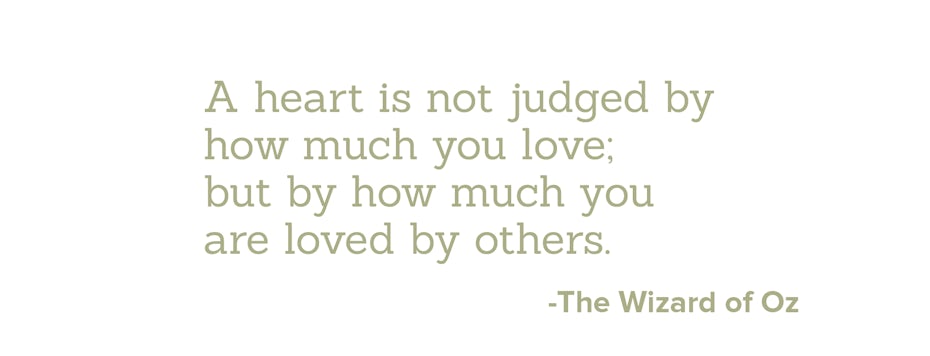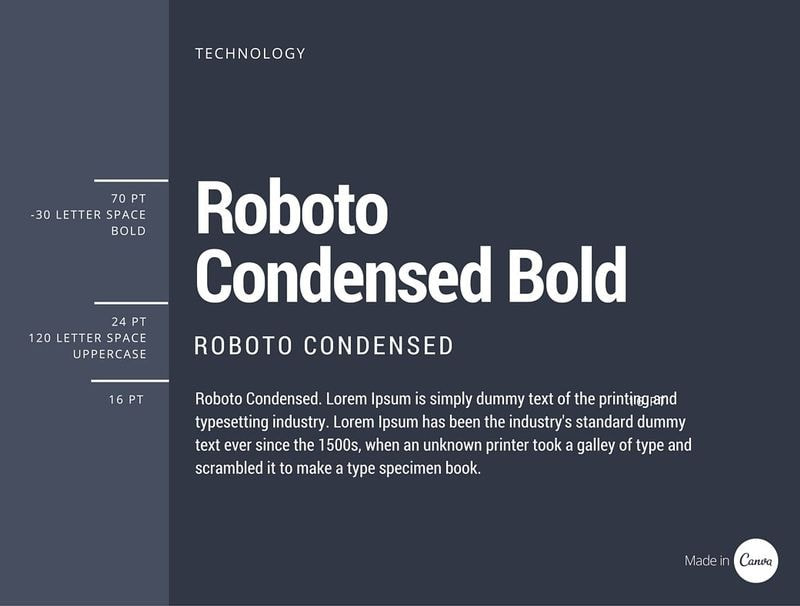
Fonts SVG PNG EPS DXF JPG AI Vector Qoutes File Sans Serif Font Combinations Potoshop. Google fonts now supports variable fonts. If you opt for different weights and sizes, you will be able to establish a friendly hierarchy between the two neutral families. Bodoni 175 merriweather minion pro montserrat museo museo sans rounded museo slab nimbus sans old standard open sans oswald oxygen petrona playfair display proxima nova pt serif quicksand. It uses the fonts available through the canva design tool. I will show you 10 beautiful font pairs which you can. Some great google font combinations for you to include in your next project. A breif explination of typography (serif vs sans) and some google font choices. Script typefaces are those in which many characters have strokes that join them to other letters similar to cursive handwriting. Sans serif typefaces are those that do not contain serifs at the end of strokes. It is clear, crisp and traditional. In this video, i will show you free font combinations of serif and sans serif fonts from google fonts. Canva's font combinations lets you select your first choice and makes suggestions on what its partner should be. Montserrat, a vintage font reminiscent of urban typography of the first half of the 1900s, is here used in combination with the sans serif font lato. See more ideas about font combos, font combinations, sans serif. In this case, a second sans serif font, lato, was used for smaller text for its readability and rounder, friendlier appearance to counterbalance oswald.
The Ultimate Guide To Font Pairing Learn. Sans serif typefaces are those that do not contain serifs at the end of strokes. See more ideas about font combos, font combinations, sans serif. In this video, i will show you free font combinations of serif and sans serif fonts from google fonts. Bodoni 175 merriweather minion pro montserrat museo museo sans rounded museo slab nimbus sans old standard open sans oswald oxygen petrona playfair display proxima nova pt serif quicksand. It uses the fonts available through the canva design tool. Canva's font combinations lets you select your first choice and makes suggestions on what its partner should be. Montserrat, a vintage font reminiscent of urban typography of the first half of the 1900s, is here used in combination with the sans serif font lato. Some great google font combinations for you to include in your next project. In this case, a second sans serif font, lato, was used for smaller text for its readability and rounder, friendlier appearance to counterbalance oswald. Google fonts now supports variable fonts. If you opt for different weights and sizes, you will be able to establish a friendly hierarchy between the two neutral families. I will show you 10 beautiful font pairs which you can. Script typefaces are those in which many characters have strokes that join them to other letters similar to cursive handwriting. It is clear, crisp and traditional. A breif explination of typography (serif vs sans) and some google font choices.
In this case, a second sans serif font, lato, was used for smaller text for its readability and rounder, friendlier appearance to counterbalance oswald. Script typefaces are those in which many characters have strokes that join them to other letters similar to cursive handwriting. If you opt for different weights and sizes, you will be able to establish a friendly hierarchy between the two neutral families. Browse by alphabetical listing, by style, by author or by popularity. It is derived from droid, and like droid it has a serif sister family, noto serif. In this video, i will show you free font combinations of serif and sans serif fonts from google fonts. Font name newest most downloads.
Font name newest most downloads. Fonts like merriweather and quattrocentro are fonts that have enough weights and styles (usually at least a serif and a sans version) that you can formulate a stunning font look to combinations like this (a script and a light, wide serif) to bring both character and readability to logo designs. In this case, a second sans serif font, lato, was used for smaller text for its readability and rounder, friendlier appearance to counterbalance oswald. The perfect font combination is with noto serif, open sans, inconsolata, roboto, source sans pro. All of this text is editable. If you purchase fonts through myfonts or fontspring, or if you sign up for a creative cloud plan to access adobe fonts, i will receive a small commission. The best selection of sans serif fonts for windows and macintosh. Font name newest most downloads. Bonange basic serif font is a bold and elegant serif font. 117 downloads free for personal use. Sans serif fonts are popular, and give your design a modern look. Montserrat, a vintage font reminiscent of urban typography of the first half of the 1900s, is here used in combination with the sans serif font lato. Simply click anywhere in the paragraph or heading text and start typing. Canva's font combinations lets you select your first choice and makes suggestions on what its partner should be. A breif explination of typography (serif vs sans) and some google font choices. It is suitable for many types of business. It is believed that they are older and font combination ideas. Script typefaces are those in which many characters have strokes that join them to other letters similar to cursive handwriting. A brand new serif with a bonus sans for. Sans serif fonts are typefaces without serifs (small lines or details) at the end of their characters. Archive of freely downloadable fonts. I will show you 10 beautiful font pairs which you can. Open sans & gentium book basic. Available for personal & commercial. Arial is the most widely used font for both online and printed media. Demo donationware free free for personal use public domain, gpl, ofl shareware. If you are looking for a font combo that works with any design, you should choose a versatile typeface combination such as this open sans font pairing. Sans serif typefaces are those that do not contain serifs at the end of strokes. Now that xe(la)tex is being increasingly used to deliver nifty documents, i am wondering if any recommendations have been published or discussed about the best combination of font families for mixing serif, sans serif, and monospace. In this video, i will show you free font combinations of serif and sans serif fonts from google fonts. It uses the fonts available through the canva design tool.
50 Perfect Font Combinations To Kickstart Your Next Design. It uses the fonts available through the canva design tool. Google fonts now supports variable fonts. In this video, i will show you free font combinations of serif and sans serif fonts from google fonts. In this case, a second sans serif font, lato, was used for smaller text for its readability and rounder, friendlier appearance to counterbalance oswald. Bodoni 175 merriweather minion pro montserrat museo museo sans rounded museo slab nimbus sans old standard open sans oswald oxygen petrona playfair display proxima nova pt serif quicksand. Montserrat, a vintage font reminiscent of urban typography of the first half of the 1900s, is here used in combination with the sans serif font lato. I will show you 10 beautiful font pairs which you can. If you opt for different weights and sizes, you will be able to establish a friendly hierarchy between the two neutral families. It is clear, crisp and traditional. Canva's font combinations lets you select your first choice and makes suggestions on what its partner should be. A breif explination of typography (serif vs sans) and some google font choices. Some great google font combinations for you to include in your next project. Script typefaces are those in which many characters have strokes that join them to other letters similar to cursive handwriting. Sans serif typefaces are those that do not contain serifs at the end of strokes. See more ideas about font combos, font combinations, sans serif.
When i was doing the research for this article, i found the following combinations and i liked the ideas.
15 Beautiful Font Pairings And What Makes Them Work 99designs. I will show you 10 beautiful font pairs which you can. If you opt for different weights and sizes, you will be able to establish a friendly hierarchy between the two neutral families. It uses the fonts available through the canva design tool. See more ideas about font combos, font combinations, sans serif. It is clear, crisp and traditional. Google fonts now supports variable fonts. Canva's font combinations lets you select your first choice and makes suggestions on what its partner should be. Bodoni 175 merriweather minion pro montserrat museo museo sans rounded museo slab nimbus sans old standard open sans oswald oxygen petrona playfair display proxima nova pt serif quicksand. Some great google font combinations for you to include in your next project. A breif explination of typography (serif vs sans) and some google font choices. In this case, a second sans serif font, lato, was used for smaller text for its readability and rounder, friendlier appearance to counterbalance oswald. Montserrat, a vintage font reminiscent of urban typography of the first half of the 1900s, is here used in combination with the sans serif font lato. Script typefaces are those in which many characters have strokes that join them to other letters similar to cursive handwriting. In this video, i will show you free font combinations of serif and sans serif fonts from google fonts. Sans serif typefaces are those that do not contain serifs at the end of strokes.
It is believed that they are older and font combination ideas.
37 Exceptional Font Pairings Trends Nice. It is clear, crisp and traditional. In this video, i will show you free font combinations of serif and sans serif fonts from google fonts. It uses the fonts available through the canva design tool. Bodoni 175 merriweather minion pro montserrat museo museo sans rounded museo slab nimbus sans old standard open sans oswald oxygen petrona playfair display proxima nova pt serif quicksand. Montserrat, a vintage font reminiscent of urban typography of the first half of the 1900s, is here used in combination with the sans serif font lato. I will show you 10 beautiful font pairs which you can. Script typefaces are those in which many characters have strokes that join them to other letters similar to cursive handwriting. Some great google font combinations for you to include in your next project. Google fonts now supports variable fonts. In this case, a second sans serif font, lato, was used for smaller text for its readability and rounder, friendlier appearance to counterbalance oswald. Canva's font combinations lets you select your first choice and makes suggestions on what its partner should be. See more ideas about font combos, font combinations, sans serif. Sans serif typefaces are those that do not contain serifs at the end of strokes. A breif explination of typography (serif vs sans) and some google font choices. If you opt for different weights and sizes, you will be able to establish a friendly hierarchy between the two neutral families.
Simply click anywhere in the paragraph or heading text and start typing.
30 Free Font Pairing Suggestions For Your Website Colormelon. See more ideas about font combos, font combinations, sans serif. Bodoni 175 merriweather minion pro montserrat museo museo sans rounded museo slab nimbus sans old standard open sans oswald oxygen petrona playfair display proxima nova pt serif quicksand. If you opt for different weights and sizes, you will be able to establish a friendly hierarchy between the two neutral families. Canva's font combinations lets you select your first choice and makes suggestions on what its partner should be. Google fonts now supports variable fonts. Some great google font combinations for you to include in your next project. I will show you 10 beautiful font pairs which you can. A breif explination of typography (serif vs sans) and some google font choices. In this case, a second sans serif font, lato, was used for smaller text for its readability and rounder, friendlier appearance to counterbalance oswald. Sans serif typefaces are those that do not contain serifs at the end of strokes. Montserrat, a vintage font reminiscent of urban typography of the first half of the 1900s, is here used in combination with the sans serif font lato. It uses the fonts available through the canva design tool. Script typefaces are those in which many characters have strokes that join them to other letters similar to cursive handwriting. It is clear, crisp and traditional. In this video, i will show you free font combinations of serif and sans serif fonts from google fonts.
Script typefaces are those in which many characters have strokes that join them to other letters similar to cursive handwriting.
50 Perfect Font Combinations To Kickstart Your Next Design. Sans serif typefaces are those that do not contain serifs at the end of strokes. If you opt for different weights and sizes, you will be able to establish a friendly hierarchy between the two neutral families. Canva's font combinations lets you select your first choice and makes suggestions on what its partner should be. See more ideas about font combos, font combinations, sans serif. Bodoni 175 merriweather minion pro montserrat museo museo sans rounded museo slab nimbus sans old standard open sans oswald oxygen petrona playfair display proxima nova pt serif quicksand. Google fonts now supports variable fonts. Script typefaces are those in which many characters have strokes that join them to other letters similar to cursive handwriting. In this case, a second sans serif font, lato, was used for smaller text for its readability and rounder, friendlier appearance to counterbalance oswald. A breif explination of typography (serif vs sans) and some google font choices. Some great google font combinations for you to include in your next project. I will show you 10 beautiful font pairs which you can. It is clear, crisp and traditional. It uses the fonts available through the canva design tool. Montserrat, a vintage font reminiscent of urban typography of the first half of the 1900s, is here used in combination with the sans serif font lato. In this video, i will show you free font combinations of serif and sans serif fonts from google fonts.
Let's check out some more examples of serif fonts.
Fonts like merriweather and quattrocentro are fonts that have enough weights and styles (usually at least a serif and a sans version) that you can formulate a stunning font look to combinations like this (a script and a light, wide serif) to bring both character and readability to logo designs. Script typefaces are those in which many characters have strokes that join them to other letters similar to cursive handwriting. When i was doing the research for this article, i found the following combinations and i liked the ideas. Download the best sans serif fonts from the web that are robust, gorgeously designed and perfect for any design project. Archive of freely downloadable fonts. Arial is also the default font in google docs. The perfect font combination is with noto serif, open sans, inconsolata, roboto, source sans pro. Demo donationware free free for personal use public domain, gpl, ofl shareware. If you opt for different weights and sizes, you will be able to establish a friendly hierarchy between the two neutral families. 117 downloads free for personal use.